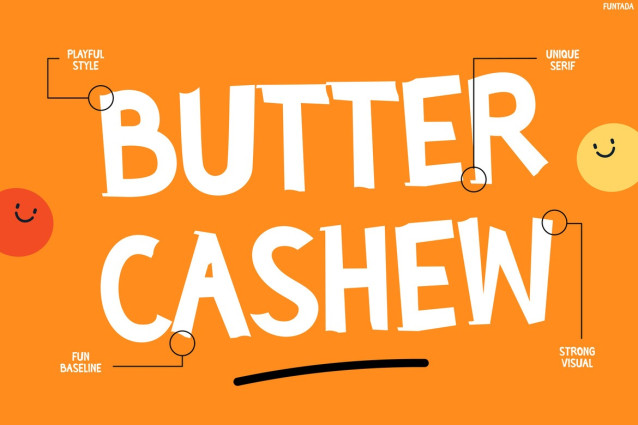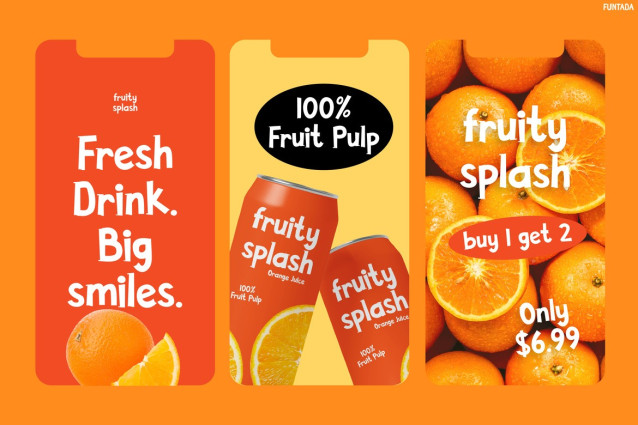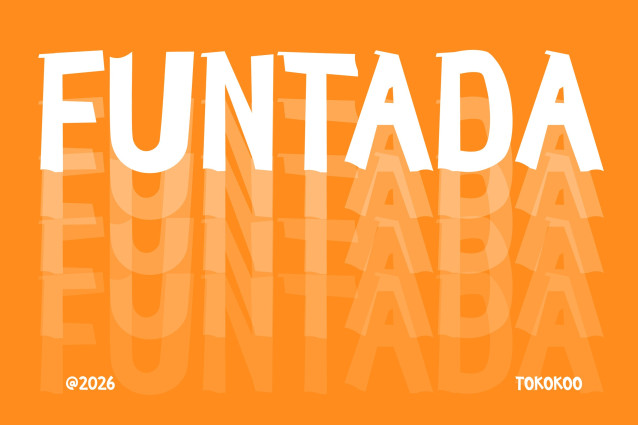
FUNTADA Font
Kids Font FUNTADA is a bold display font made to bring excitement, fun, and irresistible charm to every design. Not only does it feature chunky handwritten letterforms, but it also combines playful curves and lively proportions that instantly catch the eye. Moreover, its energetic style creates a cheerful personality that feels warm, friendly, and full of happiness. In addition, the clean yet quirky shapes keep every headline easy to read while adding a handcrafted touch. Furthermore, FUNTADA delivers a fresh visual rhythm that makes branding feel more engaging.
As a result, packaging, advertisements, and promotional materials become brighter and more memorable. Meanwhile, its joyful appearance perfectly matches products that celebrate fun, food, and family moments. Therefore, FUNTADA is the ideal font for brands that want to leave a delicious first impression.